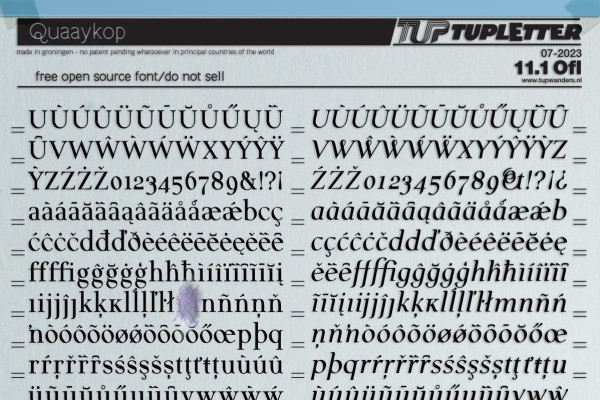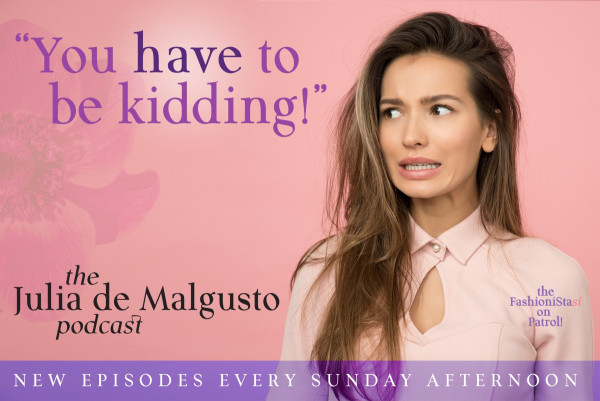
Quaaykop Font
Quaaykop Font, this serif font is stylish and sophisticated. It has a classic feel with thin strokes, sharp angles, and elegant curves. It is perfect for any project looking to add a touch of class. This font is PUA encoded which means you can access all glyphs and swashes effortlessly!
I use a couple of home made simple basic fonts to base my other fonts on. I still needed a simple boring serif font, but could never bring up the energy to actually make one, because it’s… well, boring. A week and a half ago there was a heatwave and my fat ass had to stay inside. So I finally made that boring font from memory, trying hard to remember what I was taught during typography lessons in art school, forty years ago. I tried to keep it as boring as humanly possible, but I’m afraid I went frolicking on the beach of insanity here and there, you’ll see where when you see it 🙂
So here it is: Quaaykop. Regular, Medium, Bold and Italic. My third font this month. It’s not perfect, but it’ll do. Might as well share it.